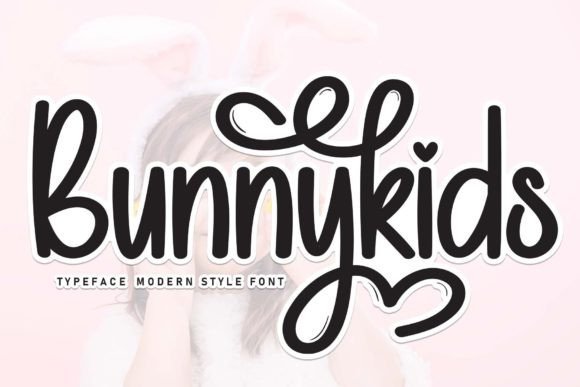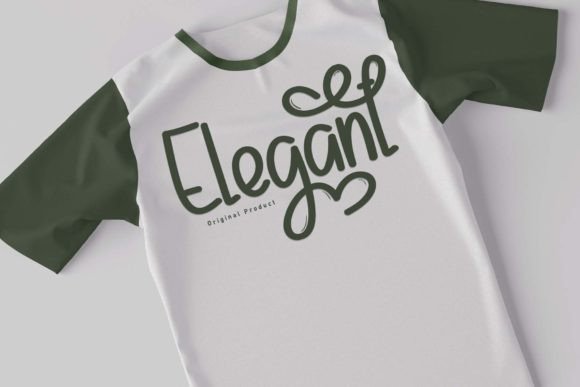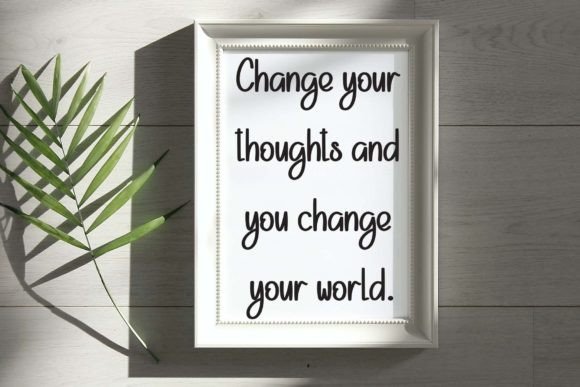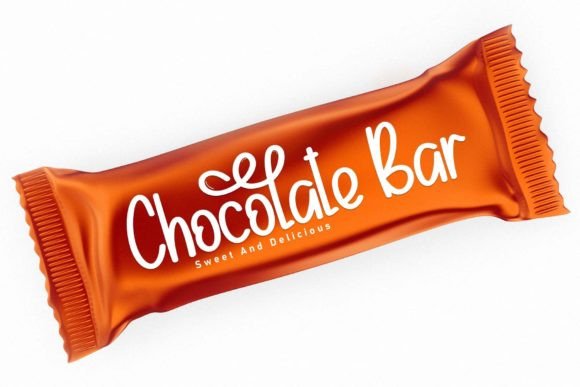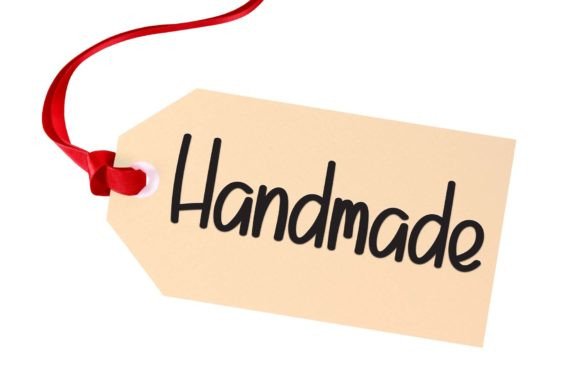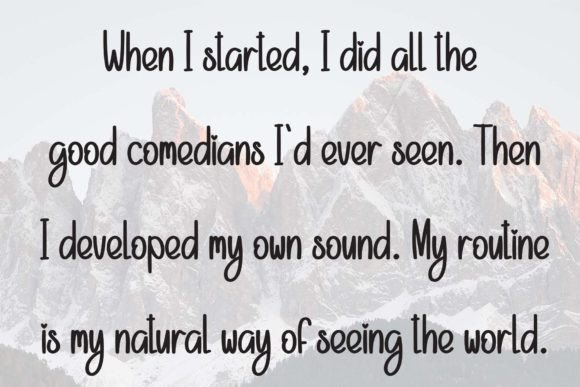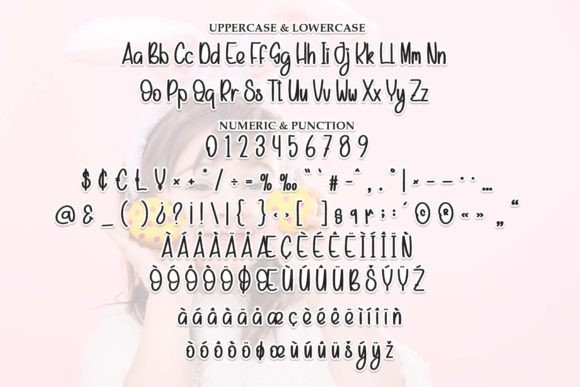
Discover the Whimsy of Bunnykids Font
Have you ever found yourself scribbling notes in the margins of a notebook, watching your handwriting transform into a beautiful, flowing script? That’s the magic of Bunnykids Font – a delicate, elegant, and handwritten font that brings a touch of whimsy to any design.
Bunnykids Font is the perfect tool for designers seeking to add a personal touch to their projects. With its well-balanced characters and beautiful letterforms, it effortlessly matches a wide range of designs, from elegant wedding invitations to playful children’s books.
Whether you’re a seasoned designer or just starting out, the Bunnykids Font is a valuable addition to your toolkit. Its versatility and charm make it an ideal choice for anyone looking to add a little extra something special to their work.
Bunnykids Font Key Features
- Font Family: Bunnykids Font is a child-friendly font designed for educational and entertainment purposes.
- Unique Characteristics: Bunnykids Font features cute, colorful, and whimsical characters, making it perfect for children’s books, educational materials, and fun designs.
Bunnykids Font Review
I recently had the chance to work with the Bunnykids Font, and I must say, it’s a unique and quirky addition to any design project. ✨ Here are a few things that really stood out to me:
- Its playful, hand-drawn feel adds a touch of whimsy and personality to text-based elements.
- The font’s bold and thick lines make it perfect for titles and headings that need to grab attention.
- Its friendly and approachable vibe makes it ideal for projects targeting a younger audience.
However, as with any font, there are some limitations to consider: ⚠️
- The font’s irregular shapes and varying line widths can make it difficult to read at smaller sizes.
- Its playful feel may not be suitable for more formal or professional projects.
- The font’s uniqueness can be both a strength and a weakness, as it may not appeal to everyone.
Overall, I think the Bunnykids Font is a fun and creative addition to any designer’s toolkit. While it may not be the best choice for every project, it’s definitely worth considering for projects that need a little extra personality and flair. With a little careful use, it can add a lot of visual interest and personality to your designs.
Getting the Most Out of Bunnykids Font
To get the most out of Bunnykids Font, try the following tips:
1. Use the font in combination with bold or italic styles to add emphasis to your text.
2. Experiment with different font sizes to create visual interest.
3. Use the font in conjunction with graphics and images to create a cohesive design.
The Bunnykids Font is ideal for:
1. Children’s book illustrations and design.
2. Cartoon-style graphics and animations.
3. Educational materials and resources.
4. Whimsical and playful branding and marketing materials